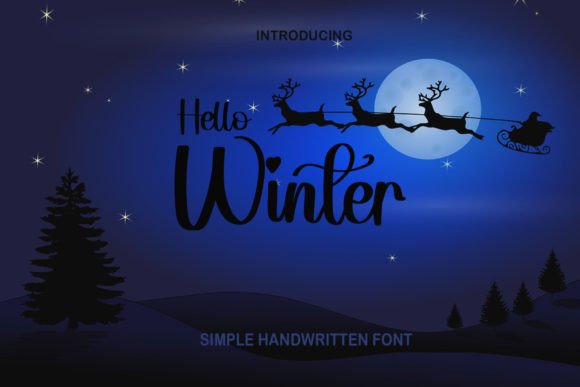
About Hello Winter Font
Hello Winter is a delicate, elegant, and flowing handwritten font. It has beautiful and well-balanced characters and as a result, it matches a wide pool of designs. Add it to your most creative ideas and notice how it makes them come alive!